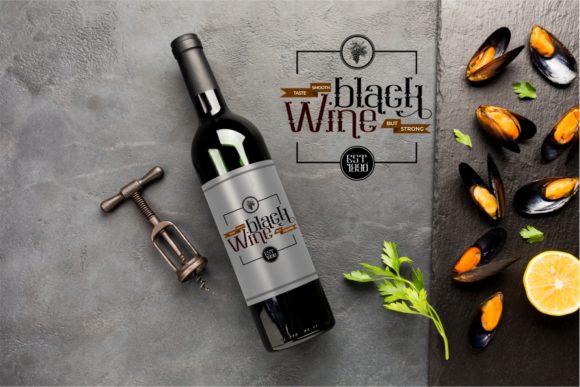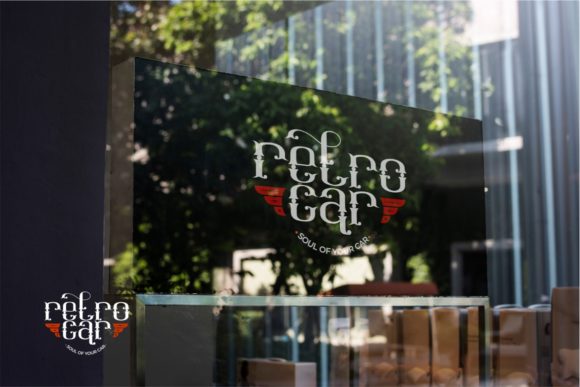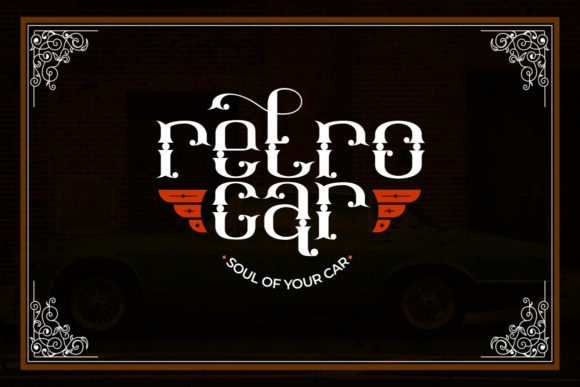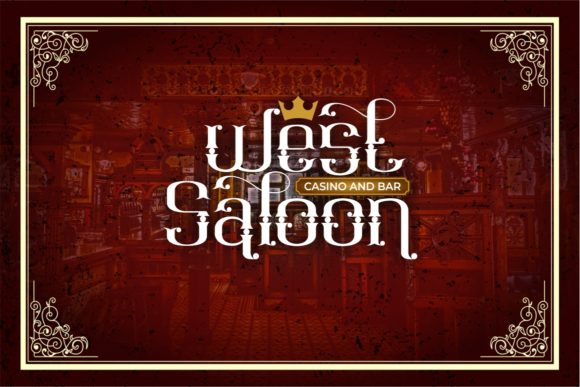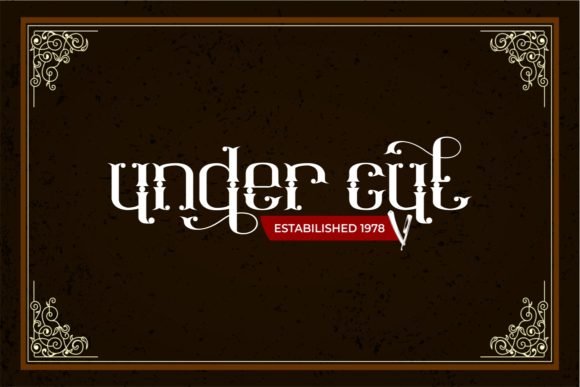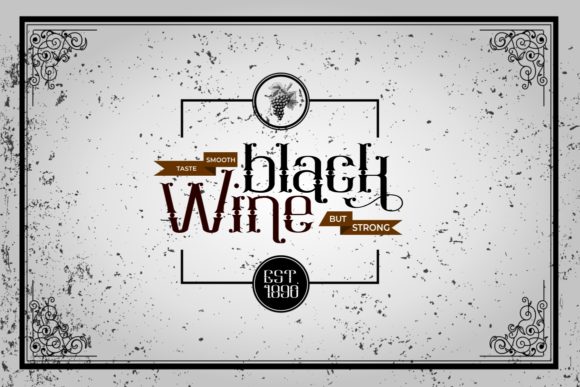
Gold Marble Font – Free Download
Introduction to Gold Marble Font
Gold Marble is a bold and elegant display font.
Key Features of Gold Marble Font
Why Choose Gold Marble Font?